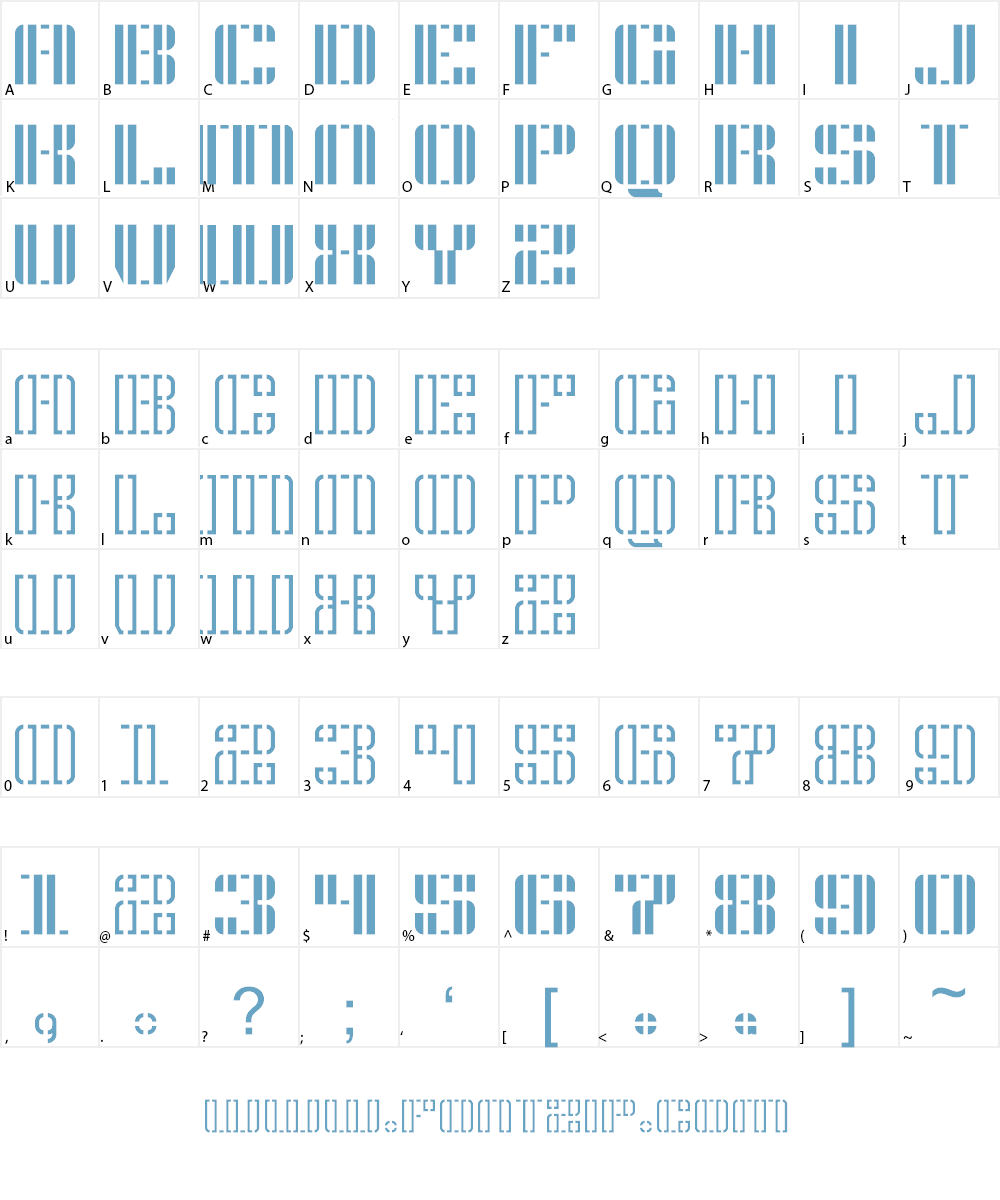
* Because of the way this font is set up, it supports A-Z and 0-9 ONLY! *
This is two fonts in one. Use UPPER CASE for solid stencils and lower case for the outlines.